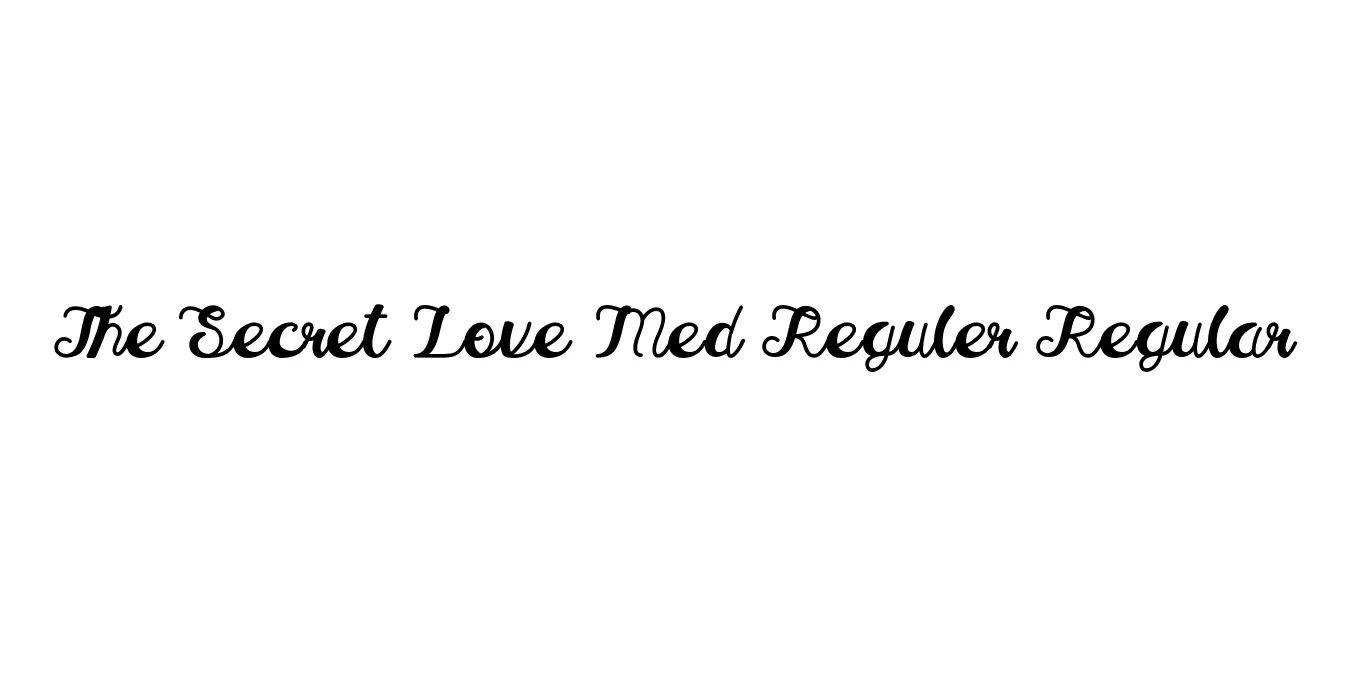
The Secret Love Med Reguler Regular
The Secret Love Med Reguler Regular is an exquisite and flowing script typeface that embodies elegance and romance. Characterized by its delicate strokes and natural handwriting rhythm, this font brings a personalized touch to any creative project. The balance between its thin connectors and slightly bolder main strokes creates a visual harmony that is both sophisticated and easy to read, making it a favorite for high-end design work.
Developed to meet the needs of modern graphic designers, this font is widely utilized in the luxury branding and wedding industries. Its versatile nature allows it to shine in both digital and print media, providing a seamless blend of classic calligraphy and contemporary style. Whether used for a signature logo or elaborate invitation suites, it adds a layer of intimacy and charm that standard serif or sans-serif fonts cannot achieve.
The Secret Love Med Reguler Regular Best Uses
Perfect for creating romantic and sophisticated stationery.
Ideal for fashion, beauty, and lifestyle brands seeking a signature look.
Enhances quotes and promotional posts with a personal feel.
Adds a warm, handcrafted touch to personal messages.